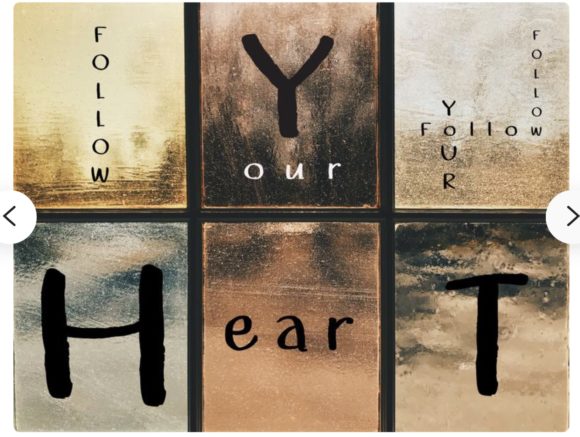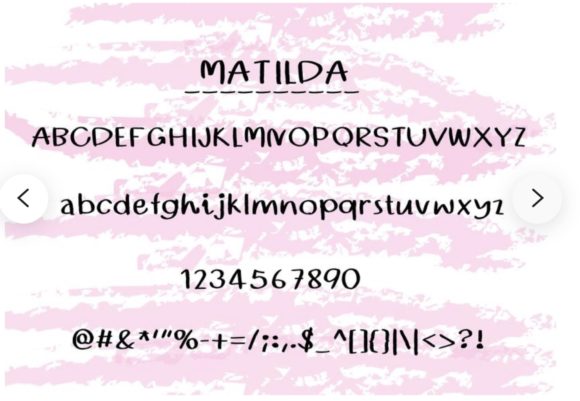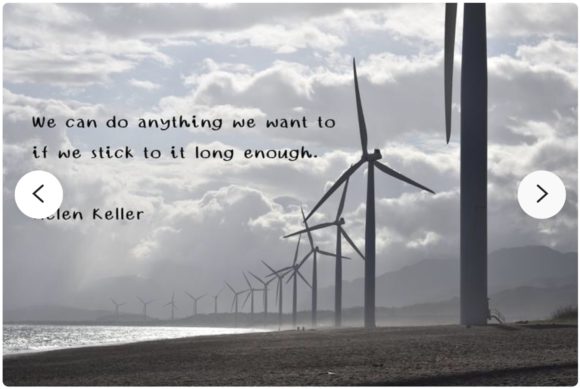
About Matilda Font
Matilda is a delightful and friendly script font that brings a playful and energetic vibe to your designs. With its unique and charming letterforms, this font is perfect for adding a touch of fun and creativity to your projects. Whether you’re designing logos, invitations, posters, or any other creative piece, Matilda is sure to bring a smile to your audience’s faces.
The flowing and dynamic nature of Matilda’s letters gives your text a sense of movement and liveliness. Each stroke has a playful bounce, creating a visually engaging rhythm that captures attention. The font’s handwritten style adds a personal and human touch, making your designs feel warm and inviting.
Matilda’s versatility allows it to adapt to a wide range of design ideas. Its friendly and approachable appearance makes it suitable for various contexts, from children’s books and toy packaging to branding and social media graphics. Whether you’re aiming for a whimsical and light-hearted look or a more casual and relaxed feel, Matilda has the flexibility to meet your creative needs.
The clean and legible letterforms of Matilda ensure easy readability, while the playful and friendly aesthetic adds a touch of character to your text. The font’s natural flow and smooth curves create a harmonious and pleasing visual experience. Matilda’s energetic and fun personality makes it a great choice for designs that require a youthful and vibrant touch.
In summary, Matilda is a fun and friendly script font that adds a playful and creative touch to your designs. With its unique letterforms and charming style, it brings a sense of joy and excitement to your projects. Whether you’re designing for children or simply want to infuse your work with a lively and inviting vibe, Matilda is an excellent choice. Get creative with this font and let your imagination soar!